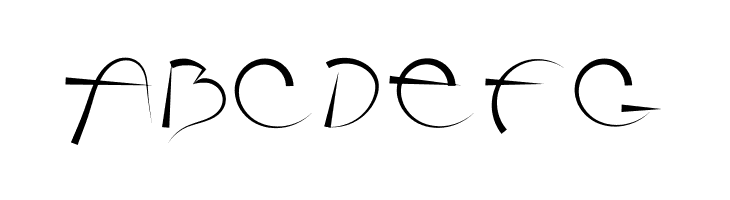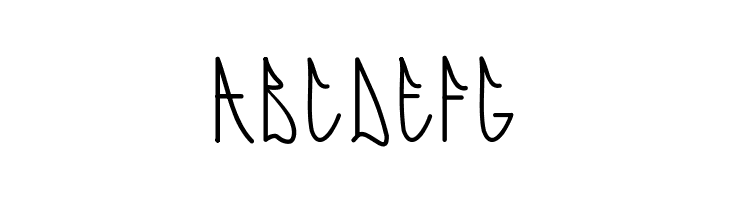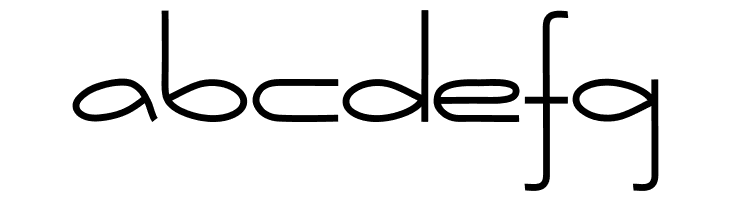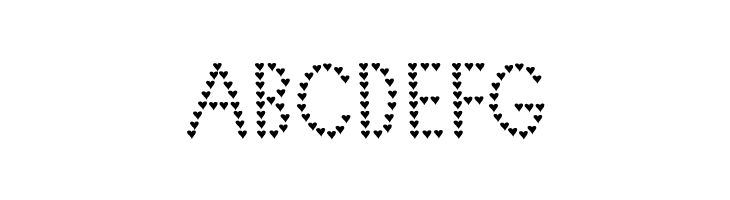
A modern, artistic font with sharp angles and smooth curves, perfect for contemporary designs.
A modern, slanted script font with connected characters and consistent stroke weight.
A geometric and angular font with a modern, edgy style.
A modern, geometric font with elongated strokes and minimalistic curves.
A modern, elegant font with high contrast and elongated strokes.
A decorative font made of heart shapes, ideal for romantic and playful designs.
A bold, modern stencil-style font with a futuristic and industrial aesthetic.